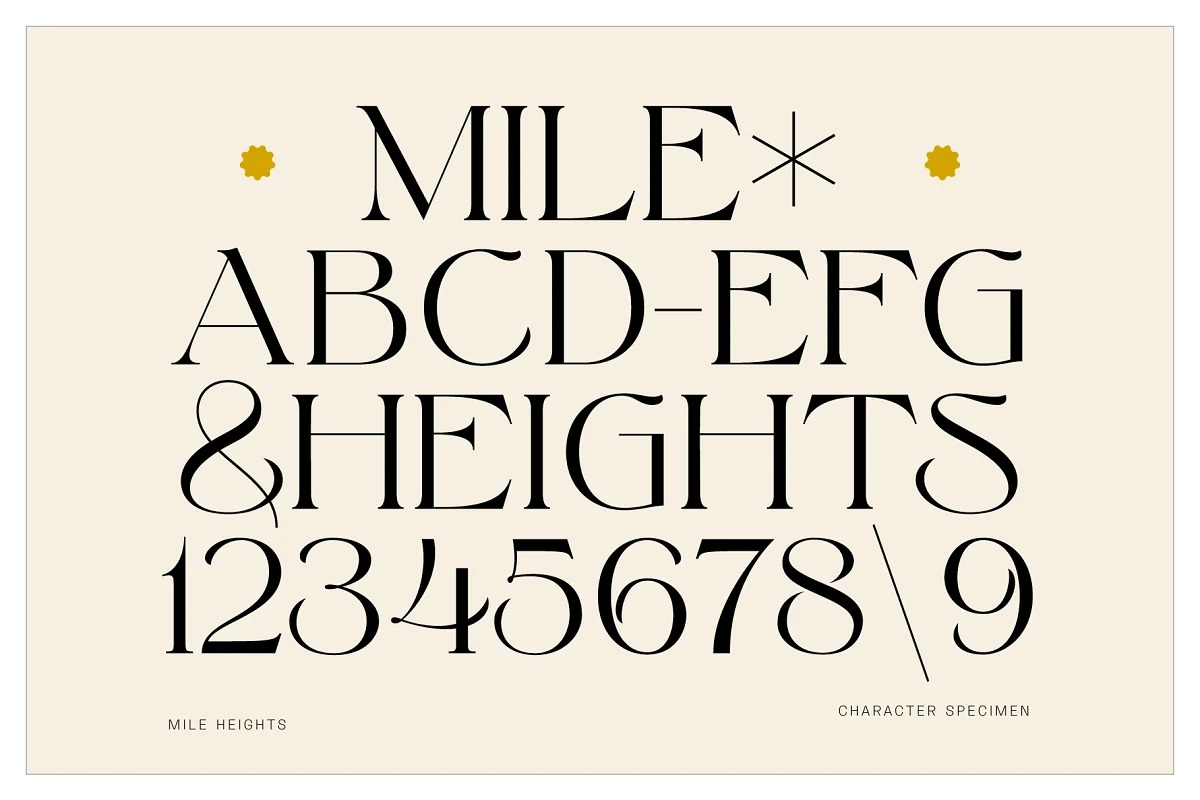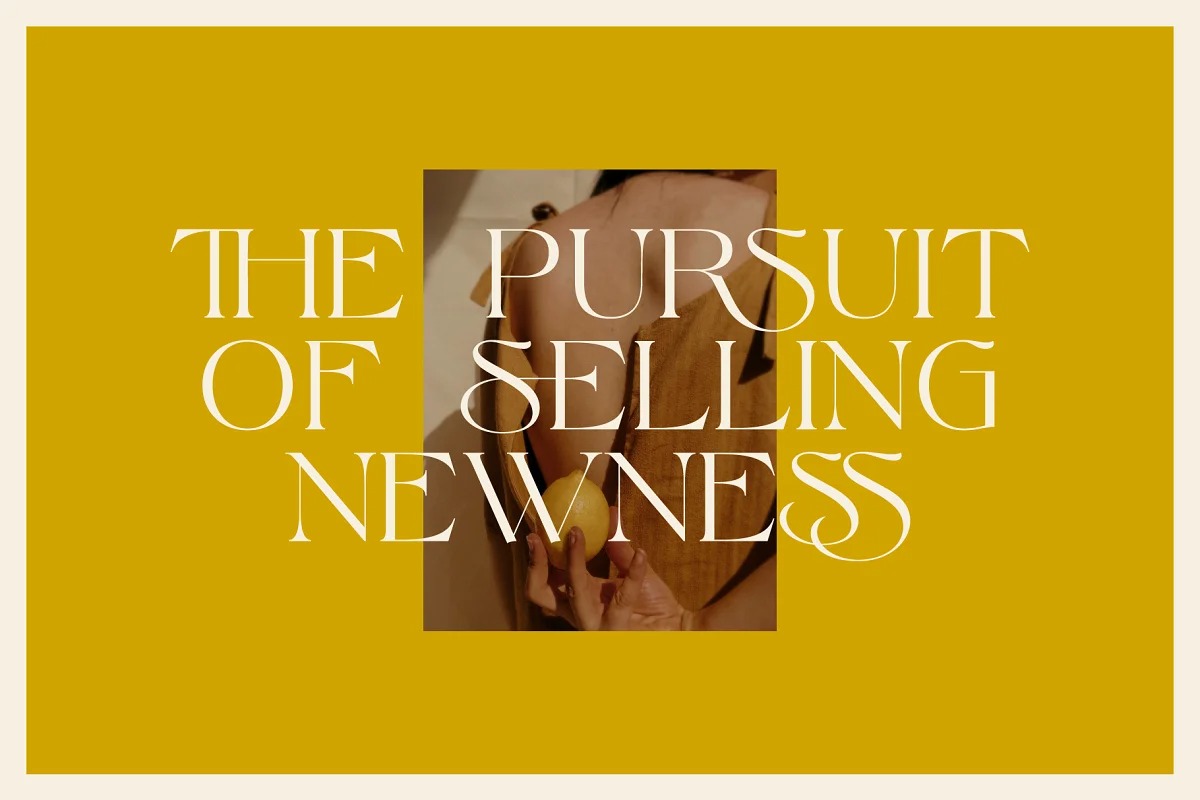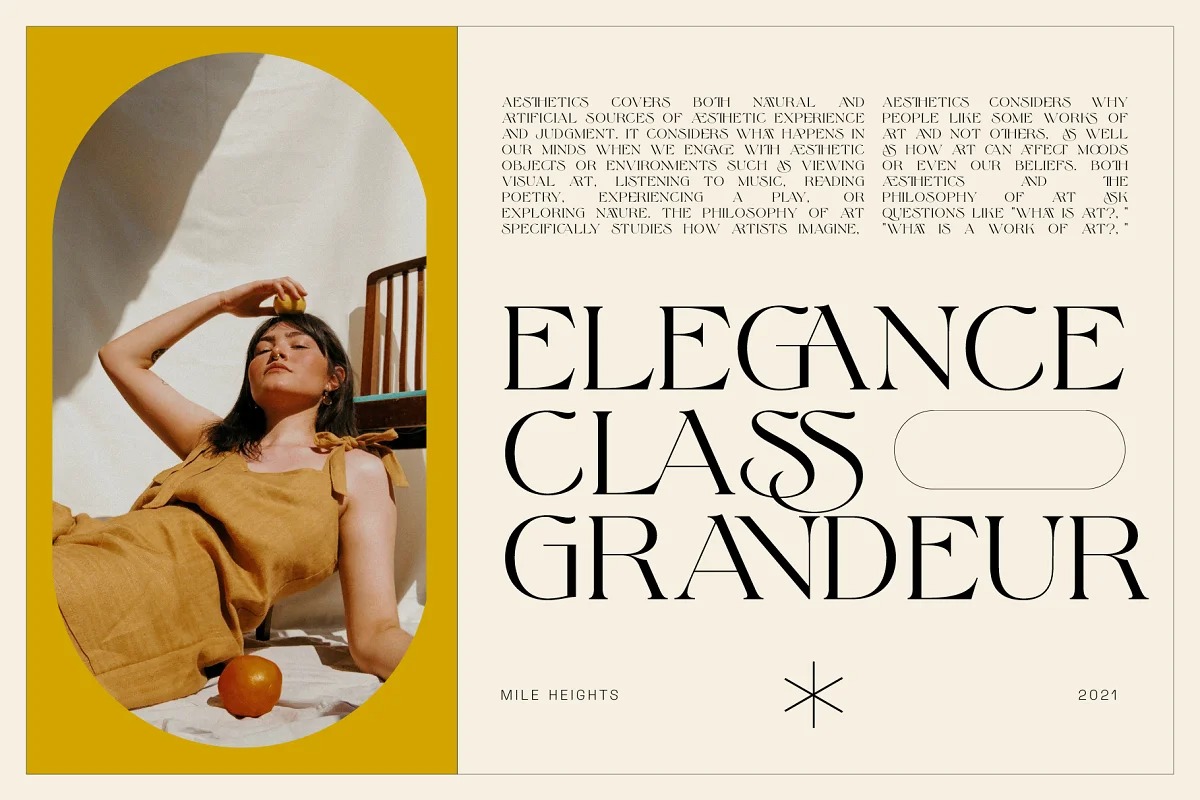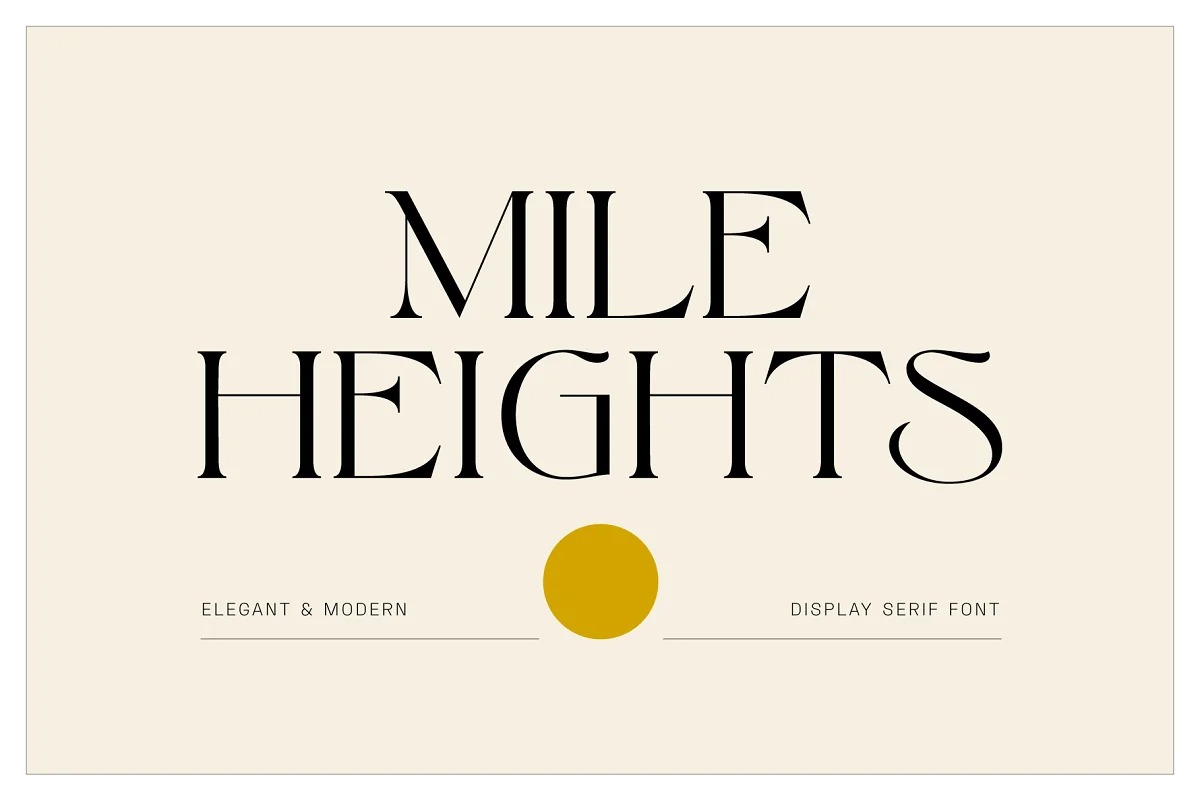
Mile Heights Serif Font
This font is a modern & elegant serif with ligature & more alternates. It’s soft curves mixed with high contrast glyphs lend it self to both feminine and masculine qualities. The custom alternate characters and ligatures make this product perfect for creating logotypes & wordmarks, editorial designs, stationery, product packaging & so much more.
Mile Heights features multilingual support and comes with 43 ligature options